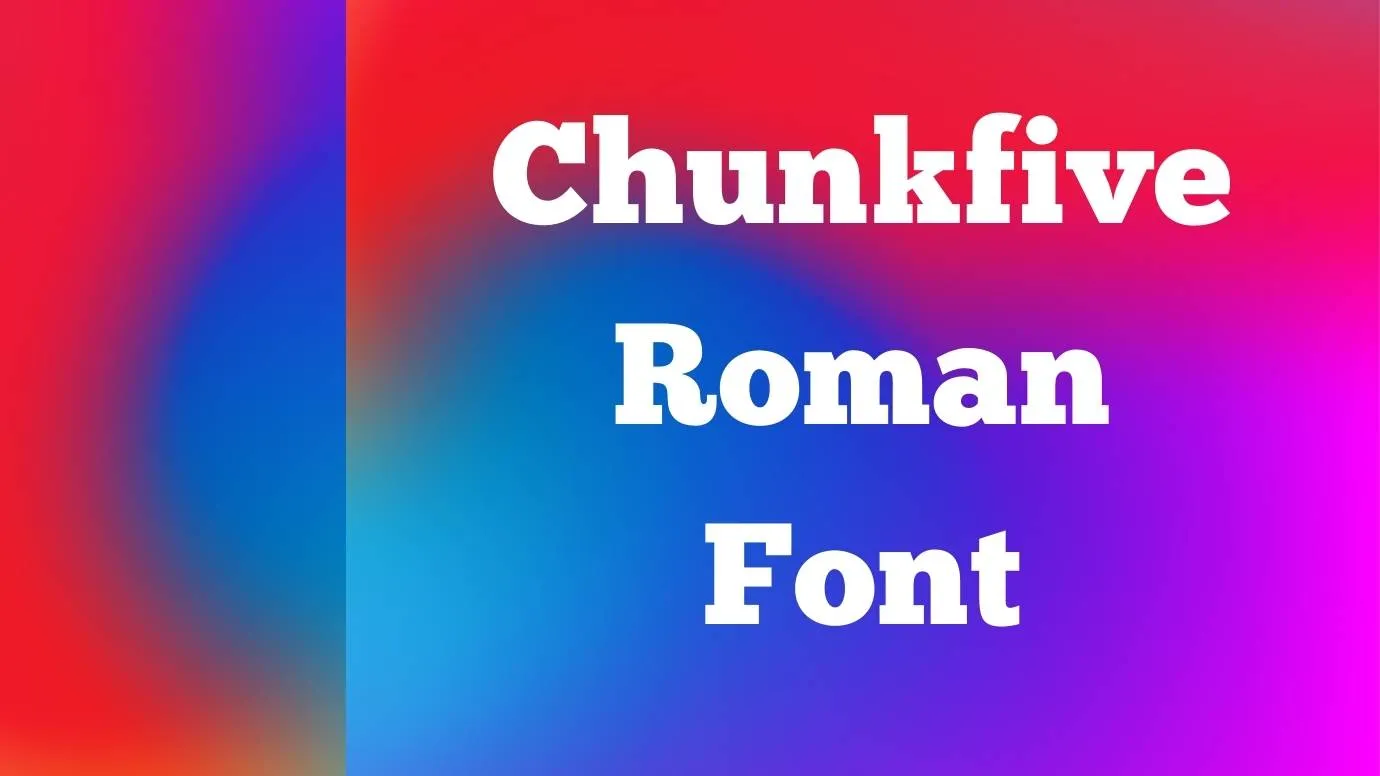
Chunkfive Roman belongs to the slab serif typeface. It was established for the first time by The League of Moveable Types. This typeface has two regular unique weights and more than 142 characters including symbols. This typeface is perfect for display projects due to its bold characters.
Chunkfive Roman
NameChunkFive Roman Font
TypeSlab-Serif
DesignerThe League of Moveable Type